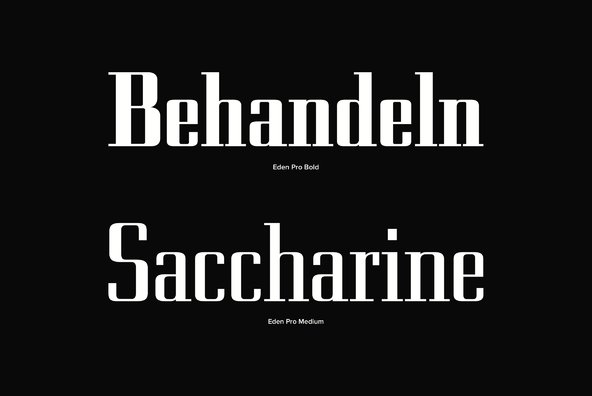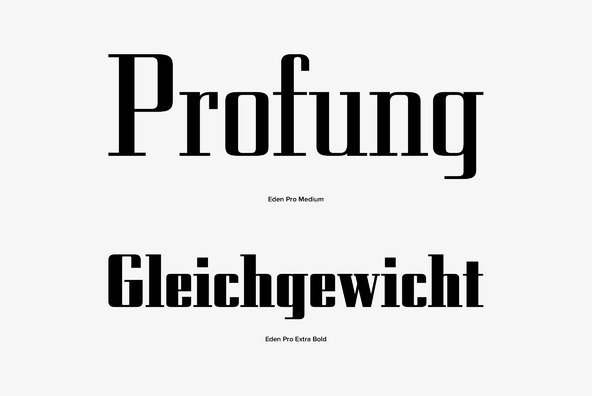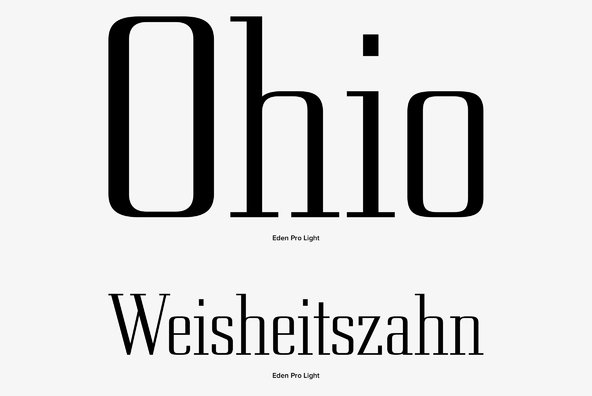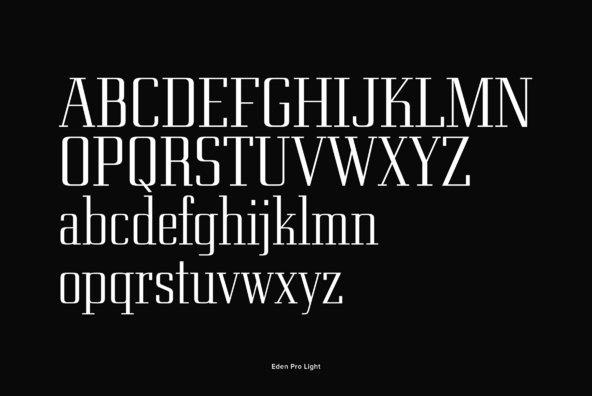
Eden Pro
Based on the original 1934 Ludlow drawings by Robert Hunter Middleton, we created two additional weights that round out the family. Eden contains all the high-end features expected in a quality OpenType Pro font.